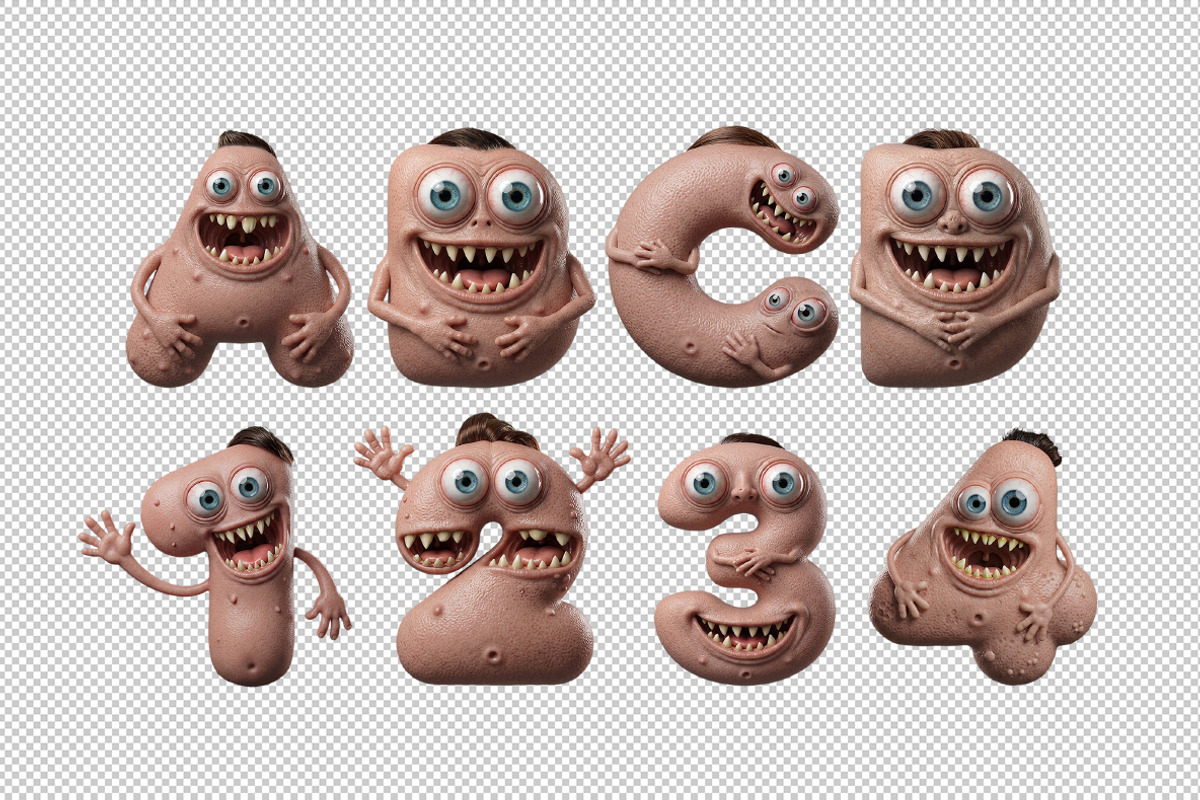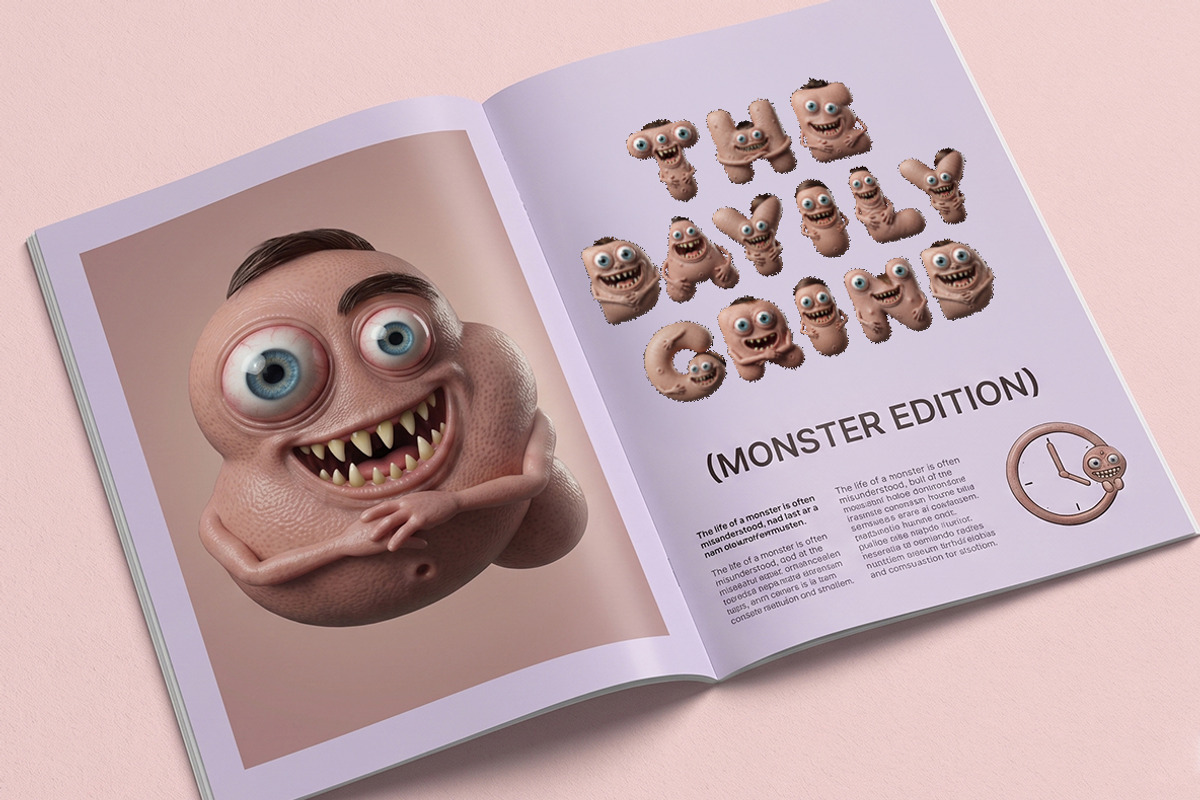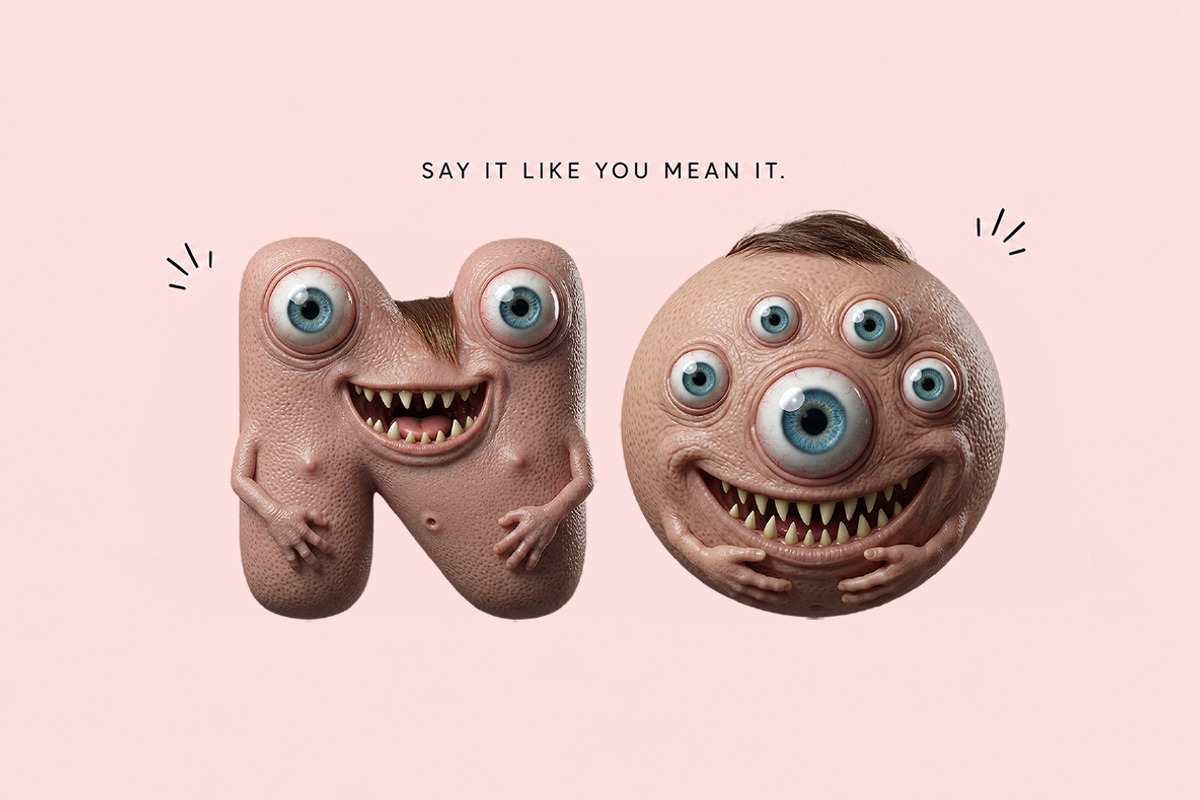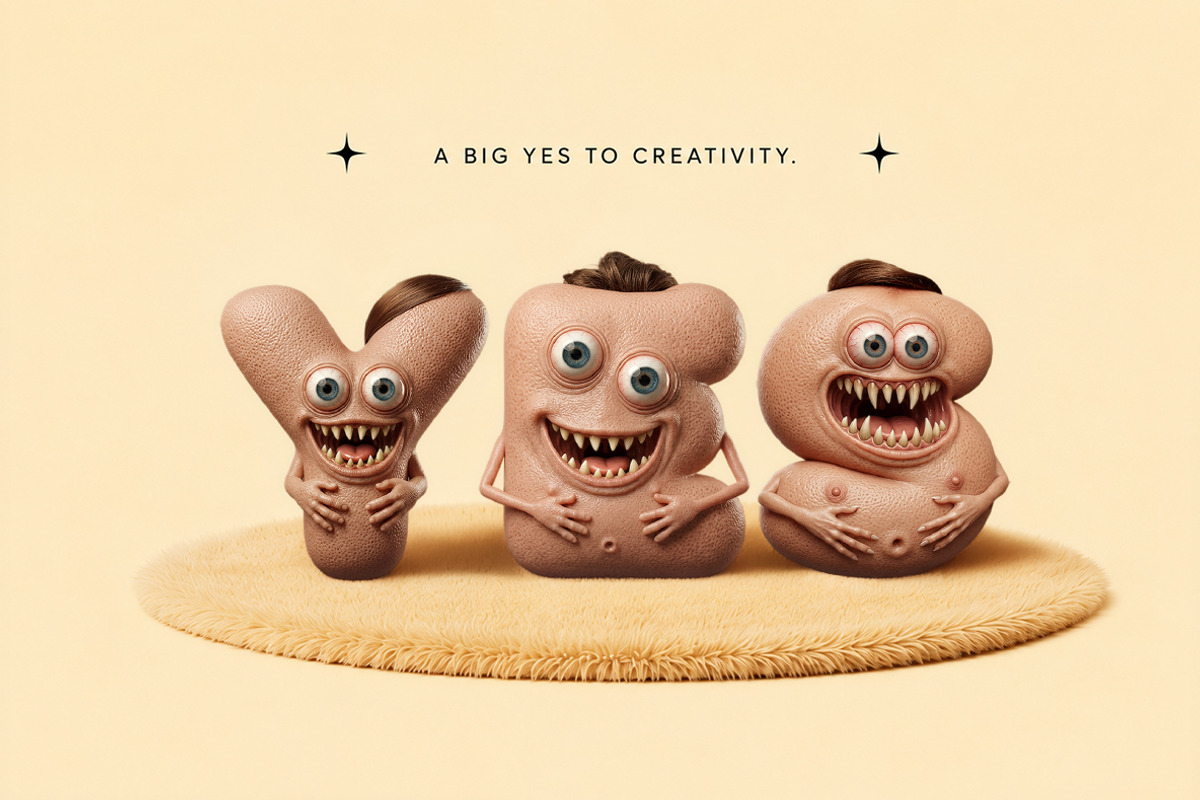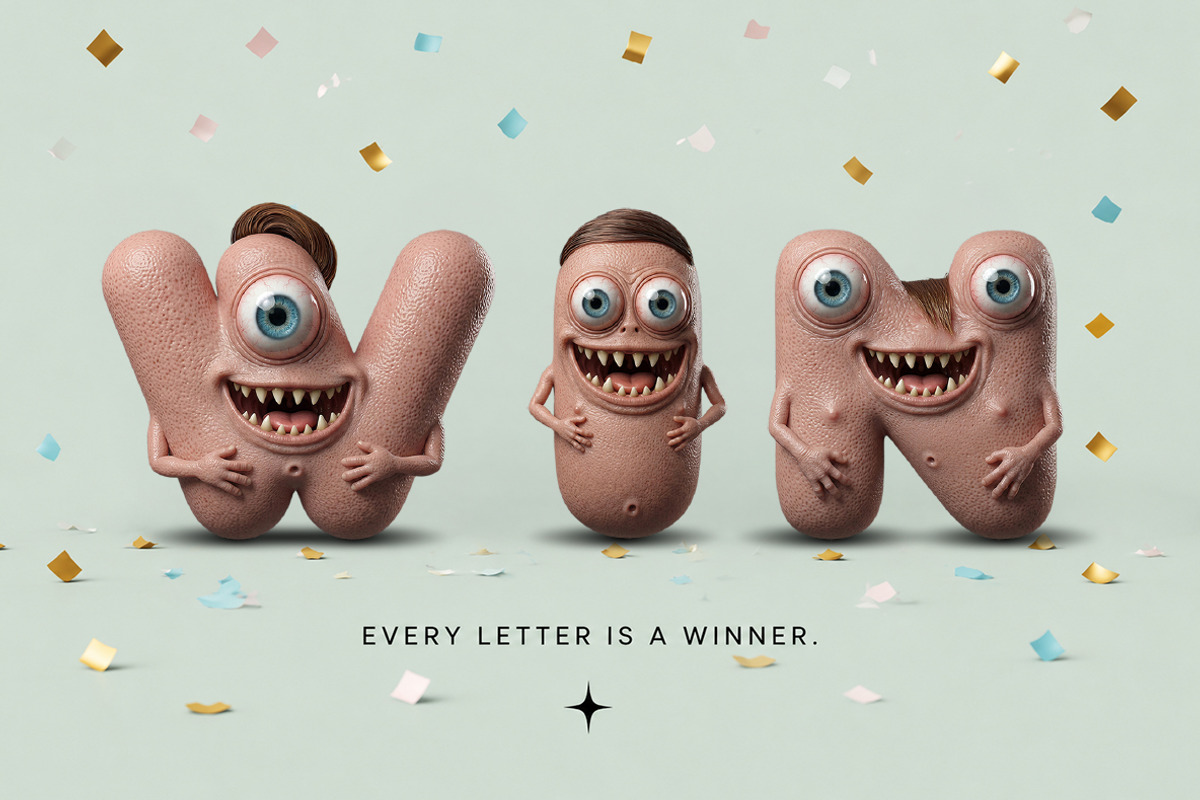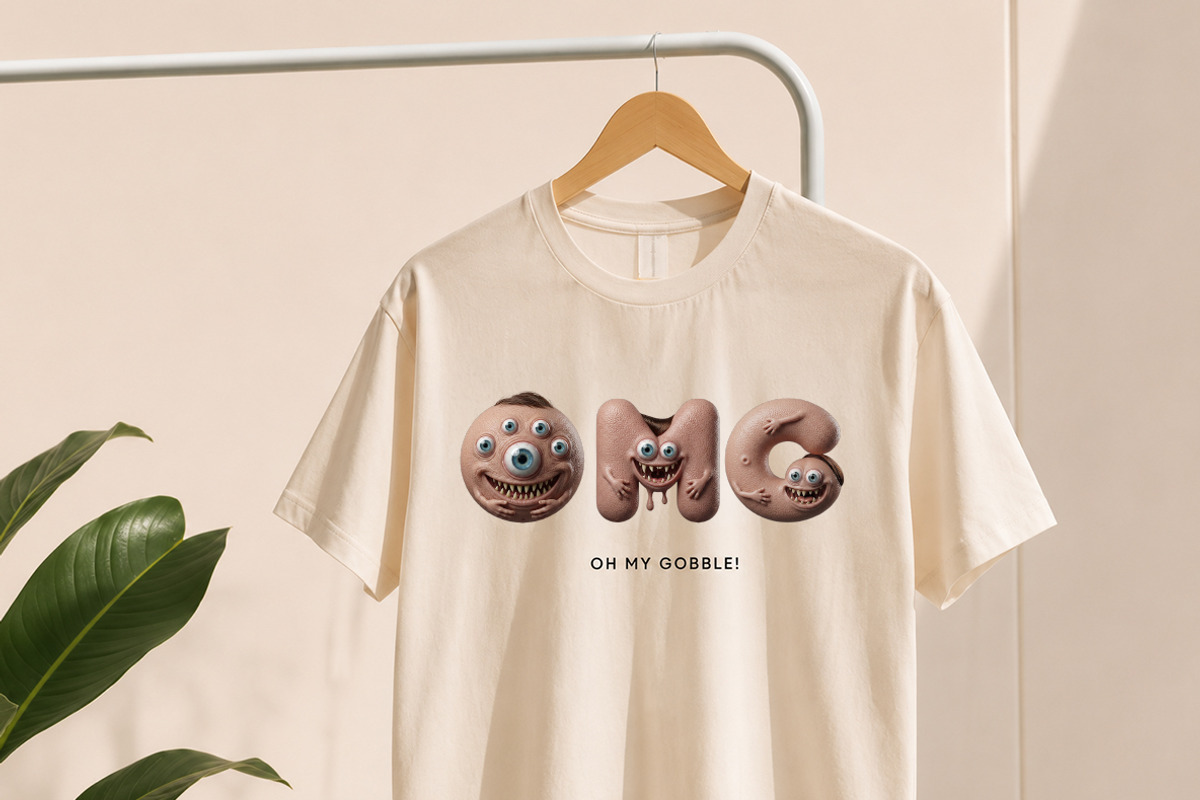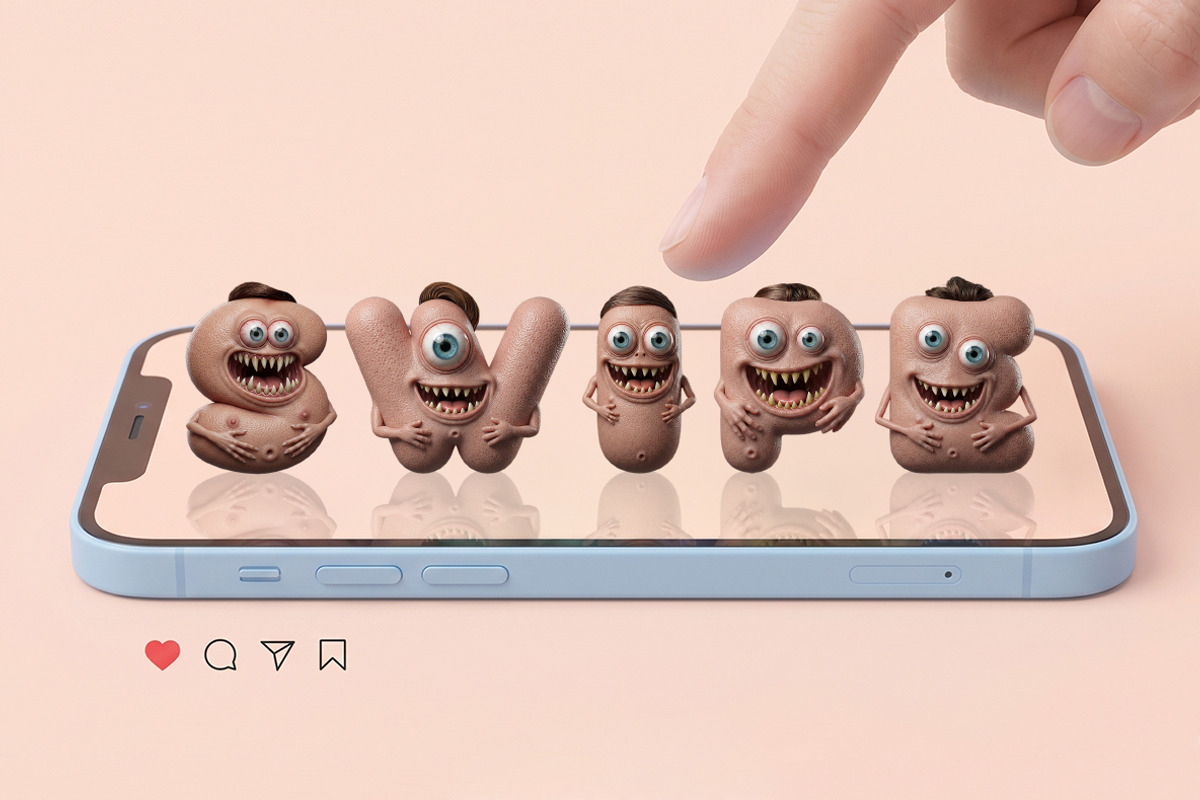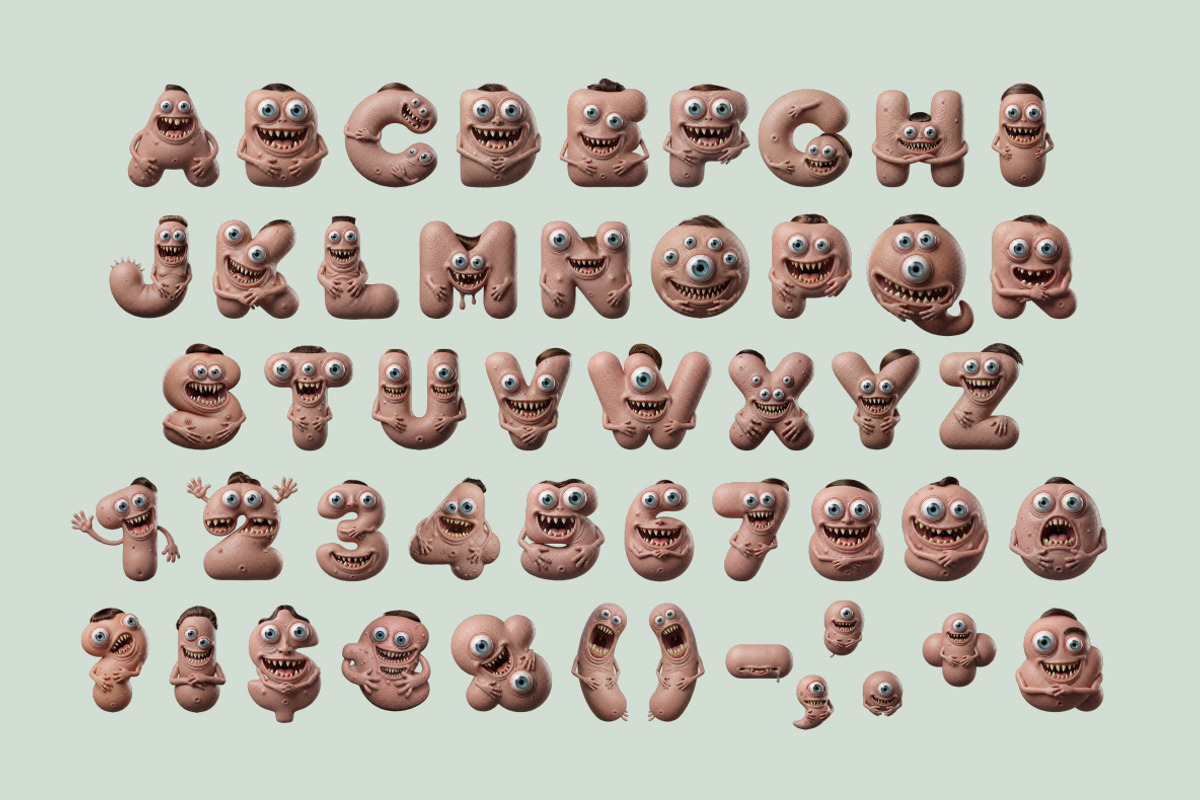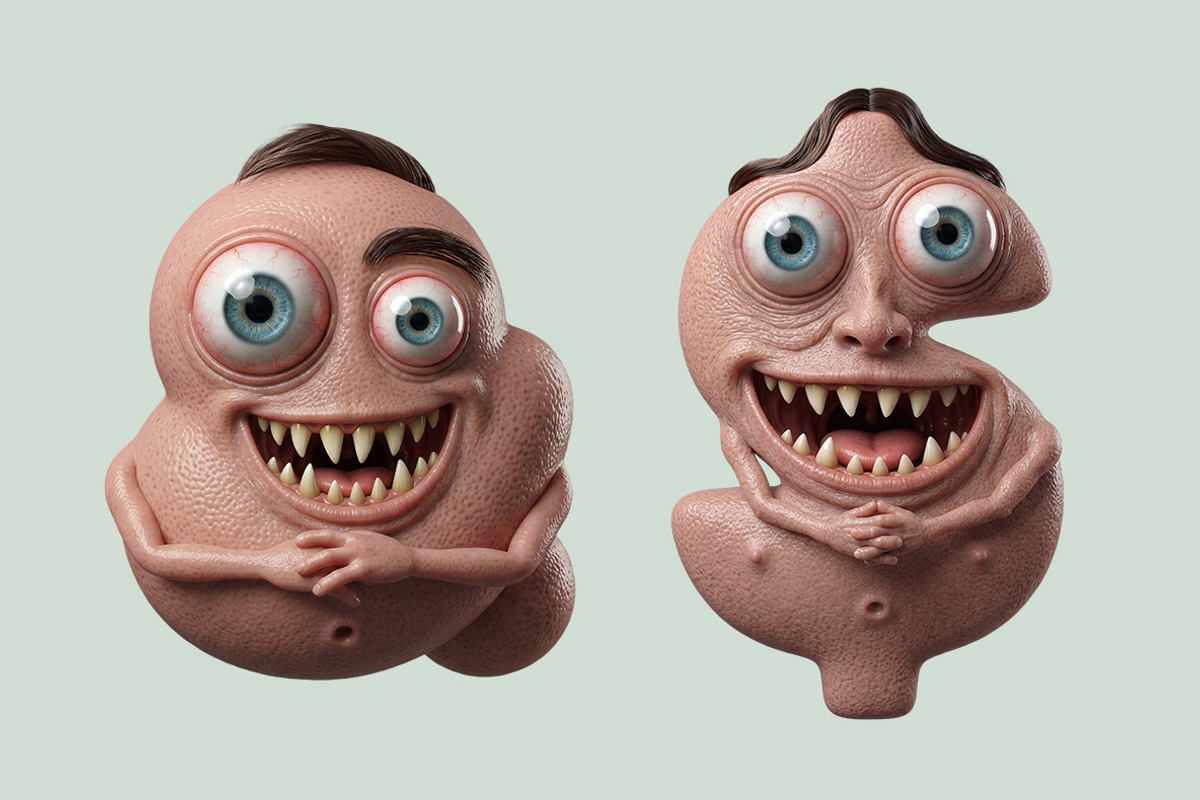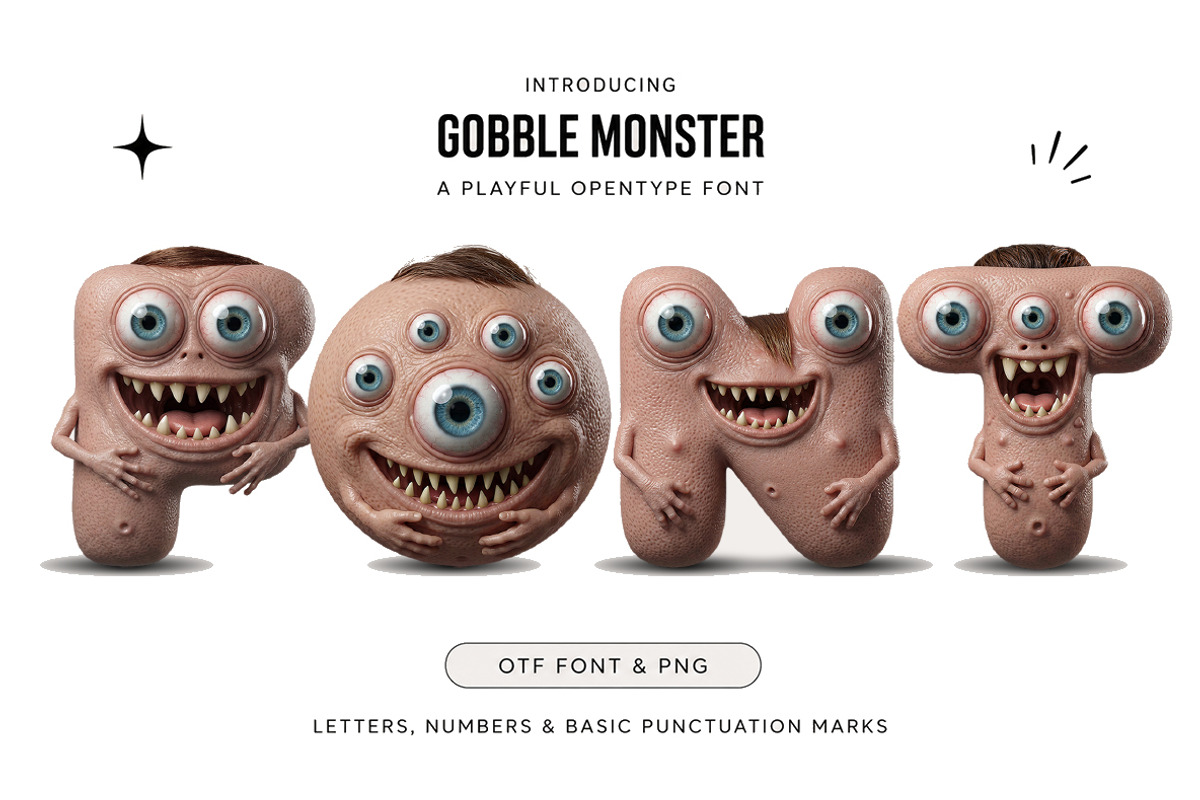
Gobble Monster Font
Gobble Monster Font is a quirky, character-filled display typeface designed to bring playful chaos and unforgettable personality to your creative projects. Every letter transforms into a mischievous little monster with expressive eyes, funny smiles, quirky hair, and charming details, making each word feel alive. Perfect for posters, children's books, games, branding, packaging, Halloween designs, social media, stickers, and imaginative merchandise. The package includes the OTF font for effortless typing and individual PNG letters with transparent backgrounds, giving you complete creative freedom for custom compositions, animations, and layered artwork. Gobble Monster Font is bold, humorous, eye-catching, and impossible to ignore.